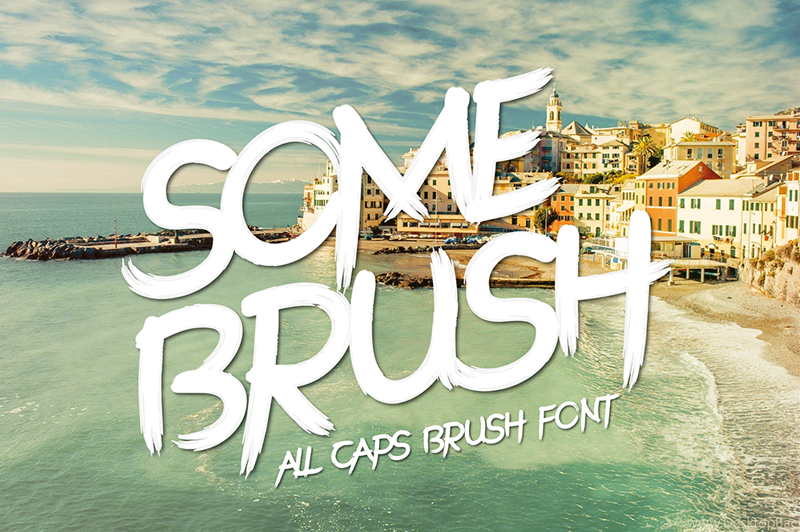
Font name: | SomeBrush |
Author: | Agus Alfian |
Note by Agus Alfian | |
SomeBrush, brush fonts are fonts inspired by scribbles on screen printing. This font is perfect for challenging jobs, titles, t-shirts, websites, hoodies, and various print and digital media with energy. Single Fighter is ideal for logos, clothing, quotes, product packaging, or anything that requires typographic turbo boost. |